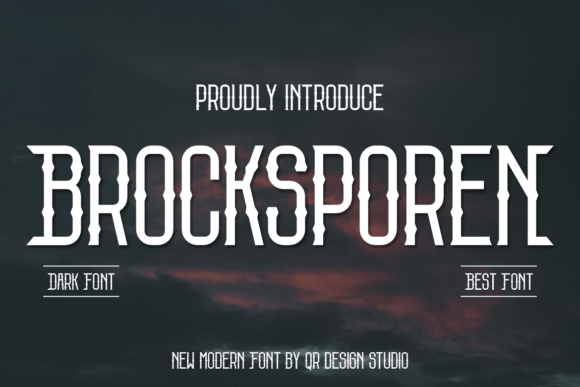
Brocksporen Font: Elevate Your Creative Projects with Style
In the world of typography, fonts play a crucial role in bringing creative ideas to life. A well-designed font can instantly elevate a project, making it more visually appealing and engaging. One such font that has been making waves in the design community is Brocksporen. This cool and stylish display font has a unique twist that sets it apart from the rest. In this article, we’ll dive into the features and benefits of Brocksporen, and explore how it can help take your creative projects to the next level.
What is Brocksporen Font?
Brocksporen is a modern display font designed to make a statement. Its unique twist lies in its distinctive letterforms, which are carefully crafted to create a visually appealing and stylish look. The font is perfect for designers, artists, and creatives looking to add a touch of elegance and sophistication to their projects.
Key Features of Brocksporen Font
- Unique Letterforms: Brocksporen’s letterforms are designed to stand out from the crowd. Each character is carefully crafted to create a distinctive look that’s both stylish and elegant.
- Display Font: Brocksporen is a display font, making it perfect for headlines, titles, and other attention-grabbing elements.
- Modern Design: The font boasts a modern design that’s perfect for contemporary projects.
- Highly Versatile: Brocksporen can be used for a wide range of projects, from branding and advertising to packaging and digital media.
Benefits of Using Brocksporen Font
So, why choose Brocksporen for your creative projects? Here are just a few benefits of using this stylish display font:
- Adds Visual Interest: Brocksporen’s unique letterforms add visual interest to any project, making it more engaging and attention-grabbing.
- Elevates Your Brand: Using a high-quality font like Brocksporen can help elevate your brand, making it look more professional and sophisticated.
- Perfect for Creative Projects: Brocksporen is designed specifically for creative projects, making it perfect for designers, artists, and other creatives.
- Easy to Read: Despite its unique design, Brocksporen is easy to read, making it perfect for use in a variety of contexts.
How to Use Brocksporen Font
Using Brocksporen font is easy. Here are a few tips to get you started:
- Pair it with Other Fonts: Brocksporen looks great when paired with other fonts. Try pairing it with a clean sans-serif font for a stylish contrast.
- Use it for Headlines: Brocksporen is perfect for headlines and titles. Use it to add visual interest to your project.
- Experiment with Colors: Brocksporen looks great in a variety of colors. Experiment with different colors to find the one that works best for your project.
Tips and Tricks for Getting the Most out of Brocksporen
Here are a few tips and tricks for getting the most out of Brocksporen:
- Use it Sparingly: Because Brocksporen is a display font, it’s best used sparingly. Use it for headlines and titles, and a more traditional font for body copy.
- Play with Font Sizes: Brocksporen looks great in a variety of font sizes. Experiment with different sizes to find the one that works best for your project.
- Don’t be Afraid to Get Creative: Brocksporen is a versatile font that can be used in a variety of creative ways. Don’t be afraid to experiment and try new things.
In conclusion, Brocksporen is a cool and stylish display font that’s perfect for creative projects. Its unique twist and modern design make it a standout in the world of typography. With its highly versatile design and ease of use, Brocksporen is a font that’s sure to become a favorite among designers and creatives. Whether you’re looking to add visual interest to a project, elevate your brand, or simply try something new, Brocksporen is a great choice.
- What is Brocksporen font? Brocksporen is a modern display font designed to make a statement.
- What is Brocksporen font used for? Brocksporen is perfect for headlines, titles, and other attention-grabbing elements.
- Is Brocksporen easy to read? Yes, despite its unique design, Brocksporen is easy to read.